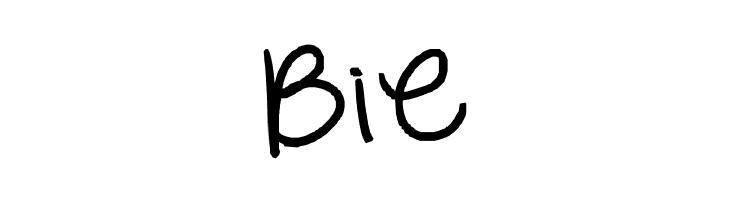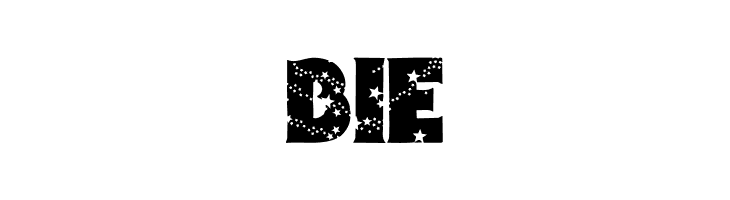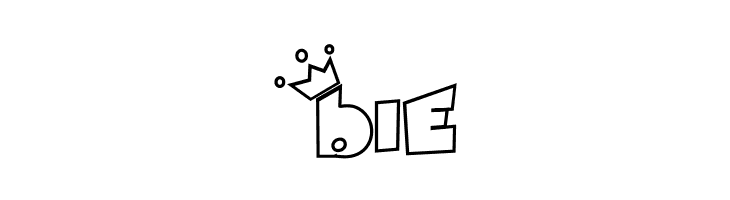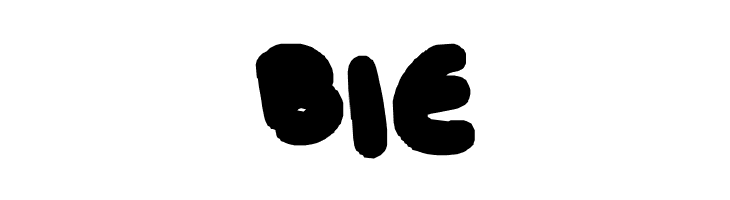
A whimsical, dotted font with sparkles, perfect for playful and creative designs.
A bold, decorative font with a playful, scribble-textured design.
A bold, decorative typeface with a hypnotic, swirling pattern.
A bold, textured font with a playful, handcrafted feel.
A bold, decorative font with a starry texture, perfect for creative projects.
A whimsical, decorative font with playful ink-like patterns.